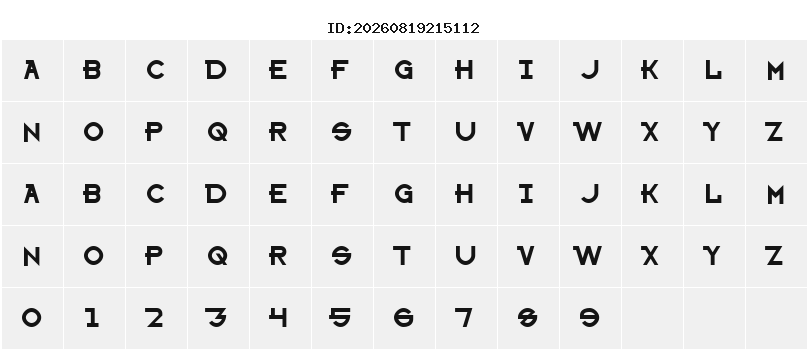
• Font Name: Sharon Apple
About Sharon Apple.ttf
Sharon Apple.ttf is a modern, elegant sans-serif font designed for ultimate readability and visual harmony. Perfect for branding, headlines, web design, and print materials.